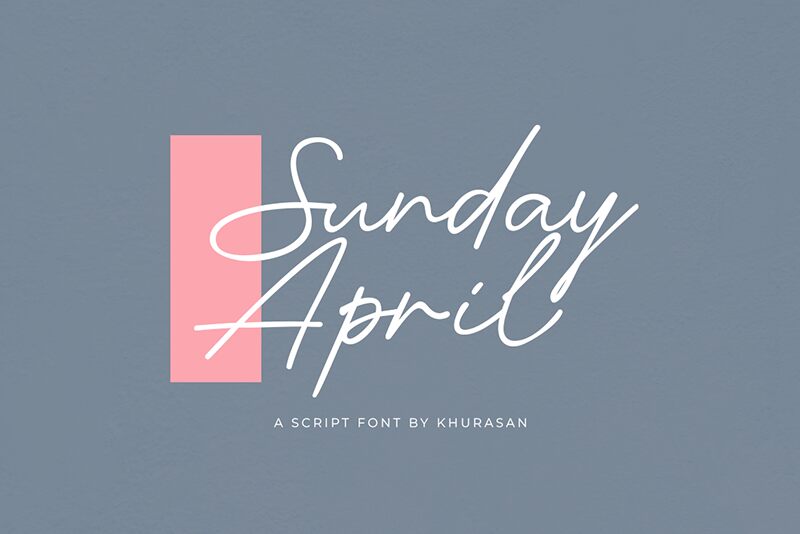
Sunday April
Sunday April, the charming handwritten font by Khurasan, is a perfect fit for creative projects that require a touch of whimsy and elegance. Its light weight conveys a delicate yet refined feel, making it ideal for invitations, branding materials, and social media graphics. Sunday April's playful curves and organic strokes lend themselves beautifully to designs that aim to evoke a sense of warmth and approachability. This typeface is sure to capture the attention of those seeking an expressive and unique font to add personality to their projects.